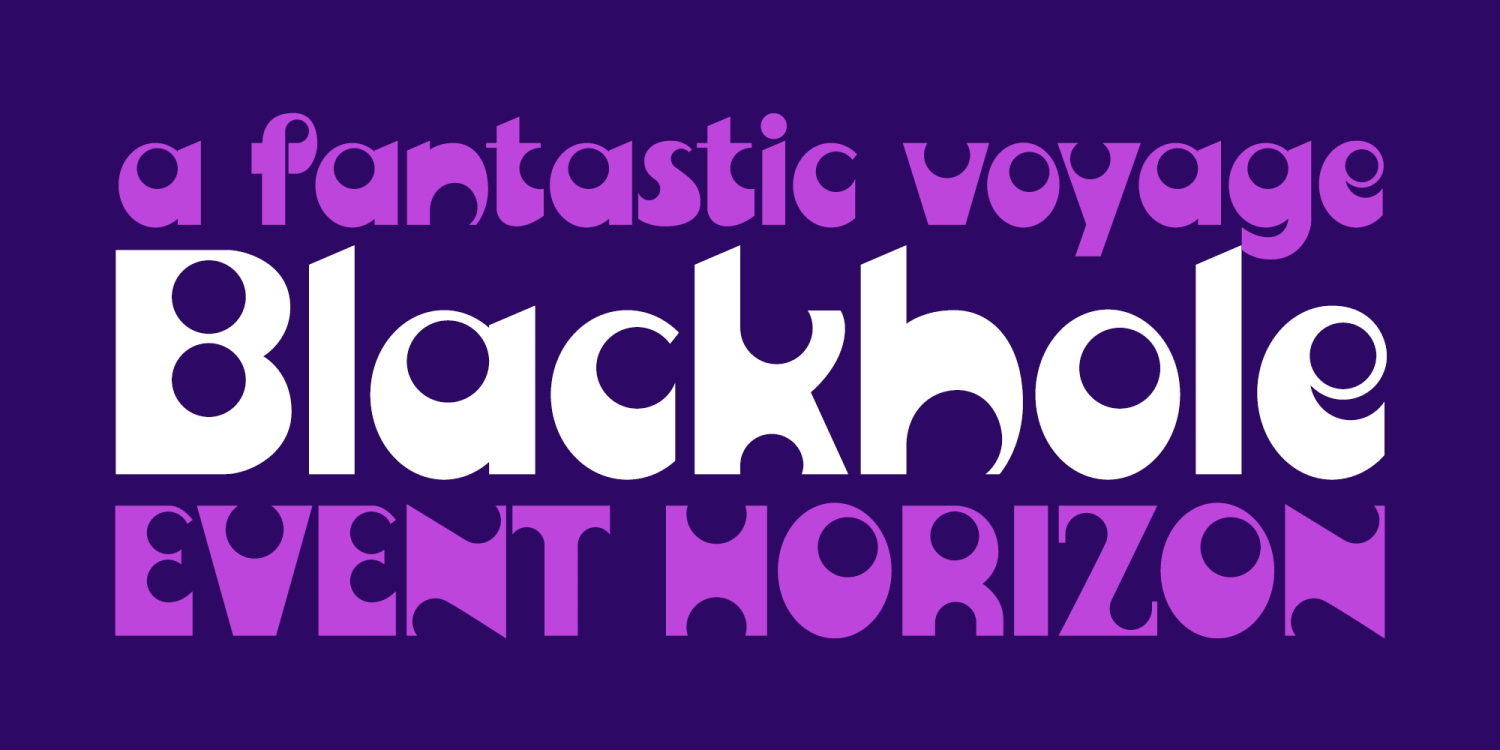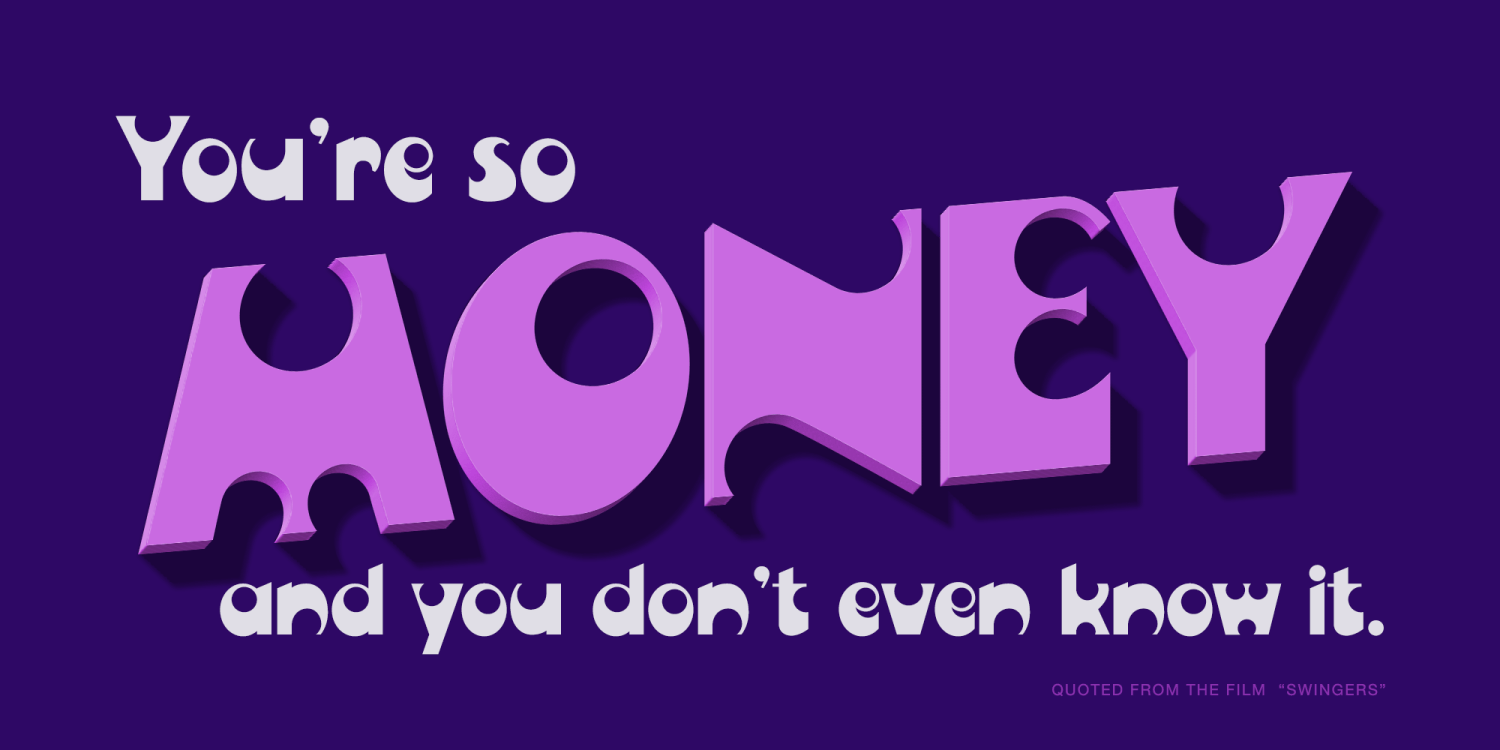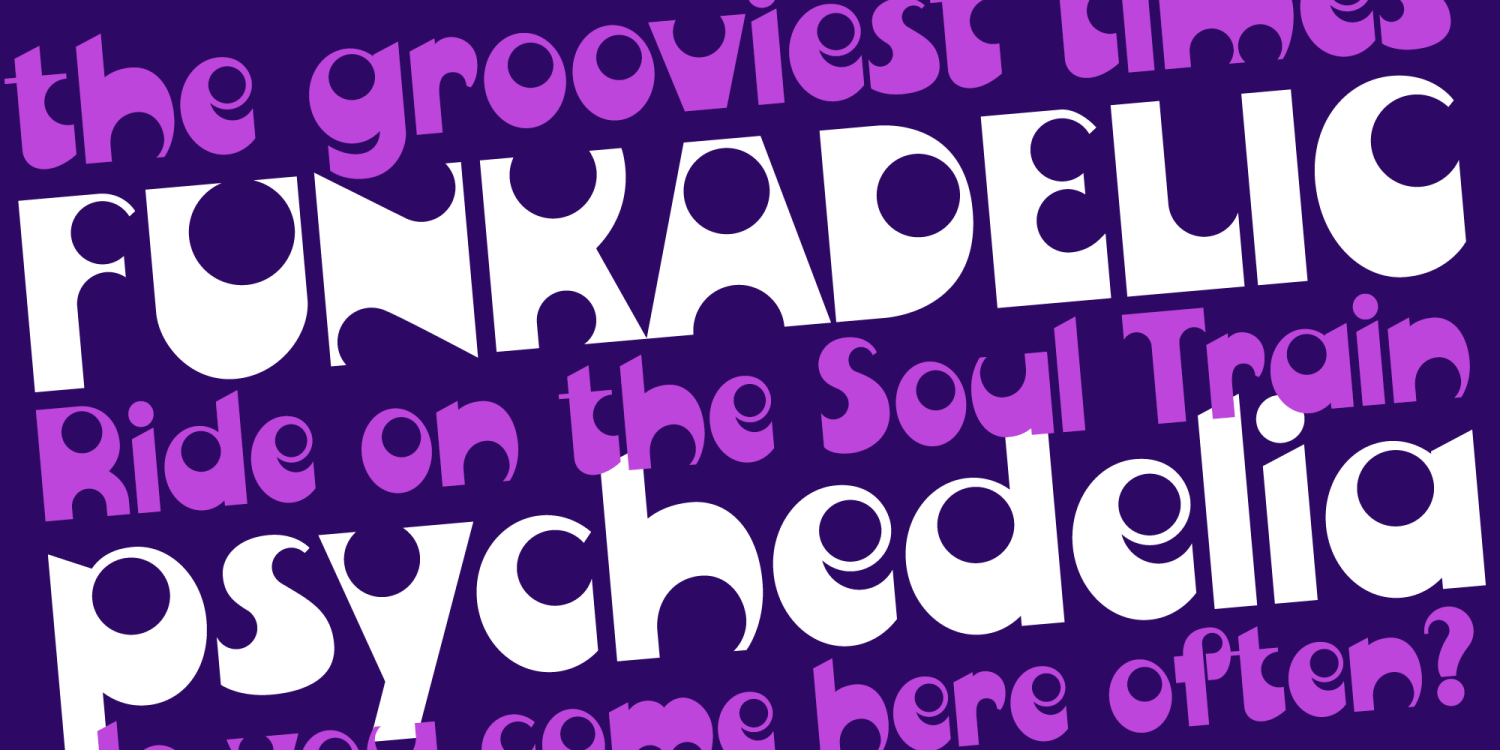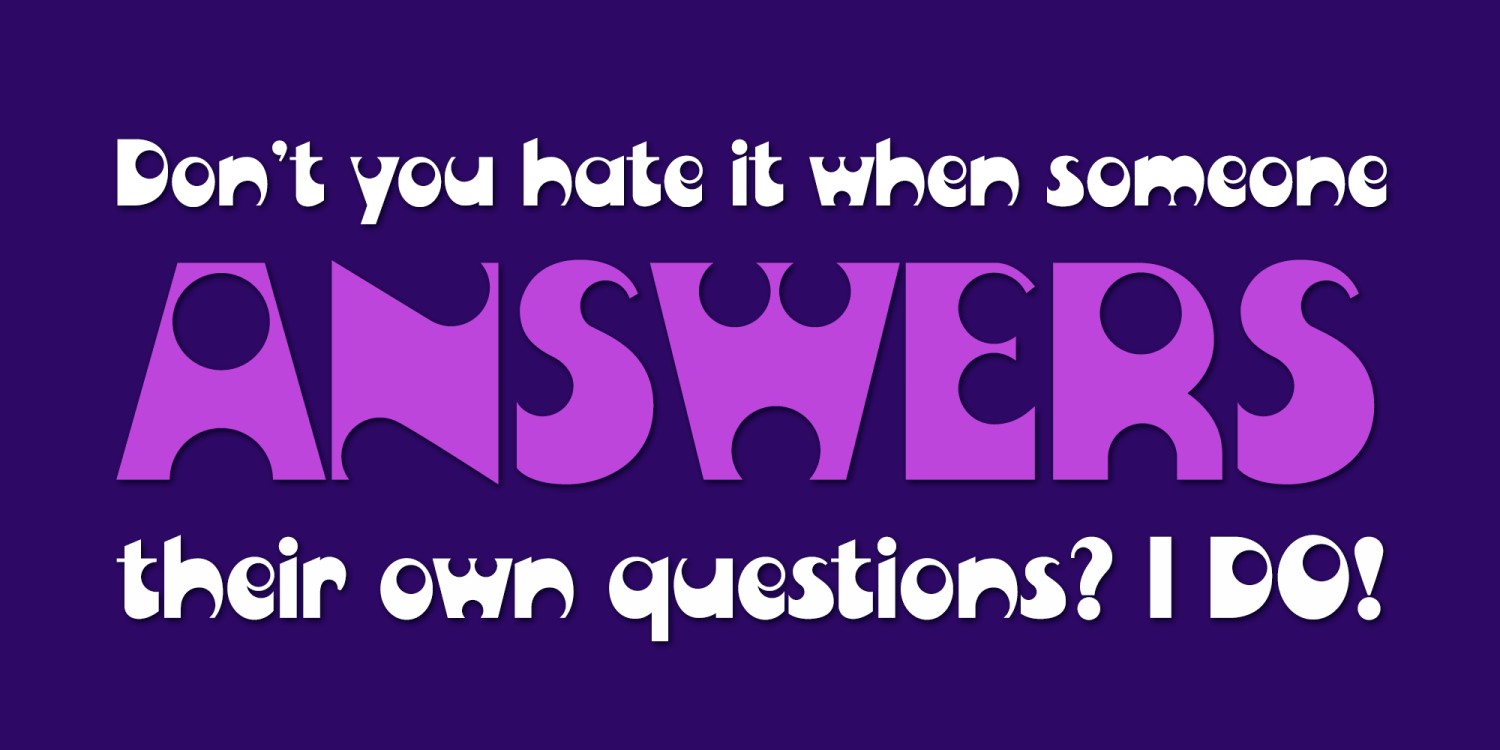
Blackhole PB
A vintage look to the future of type, this funky typestyle with circular cut outs was stylish for its day, and a true novelty for today. Blackhole PB began as a digitization of a film typeface known as Circue Solid by LetterGraphics. This typestyle has such funkadelic appeal to it that it just makes me smile. Definitely not for broad uses, but full of novel flair.
This font is the bees knees for anyone with a circle fetish. They are like hidden mickeys in this typestyle, building up curves and counters all over the place. Take it for a spin and have a flashback to wilder times.